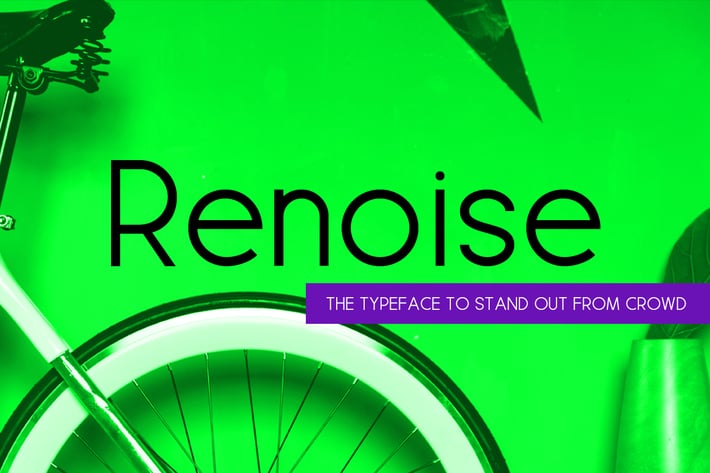
Renoise - Trendy & Stylish New Age Typeface
Renoise is a modern 'New Age' typeface with focus on style & uniqueness of it's presentation. Renoise will be best suited to create modern graphics with new age headlines, neo style texts, unique logotypes as well as web content. It is basically a Sans Serif typeface by nature, but with some added flare on each character that makes it a perfect display font too.
Renoise features Regular and Alternative styles. The alternative variant includes ornamental strokes for added uniqueness for custom use cases. The pack includes OTF, TTF and Web Fonts (all EOT, SVG, TTF, WOFF included).